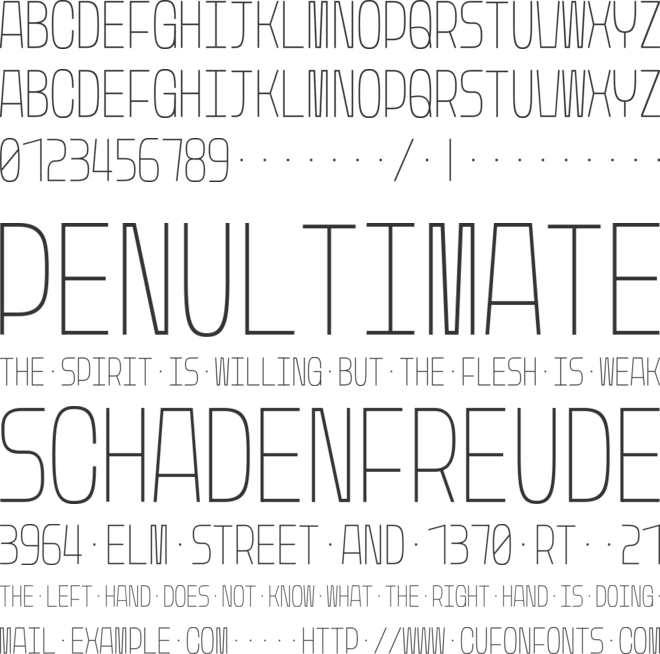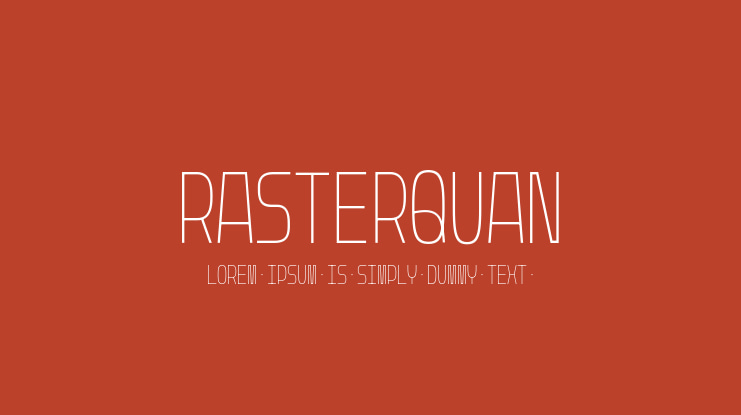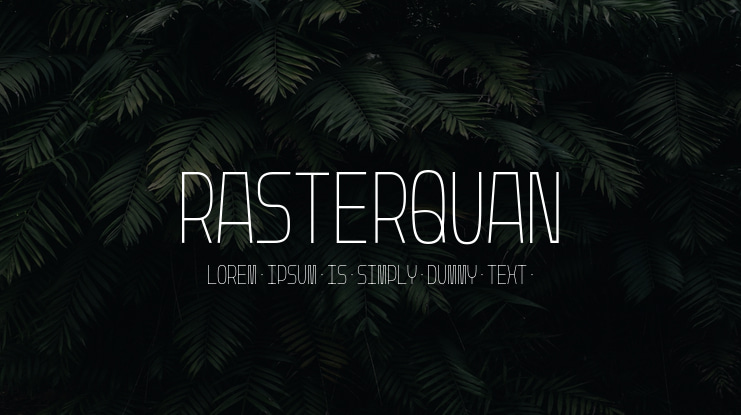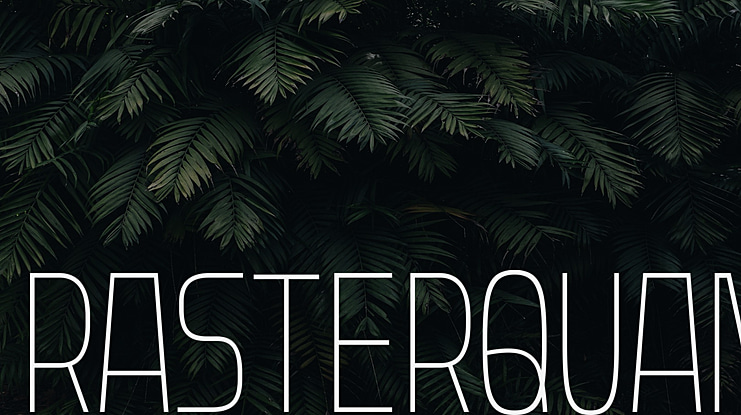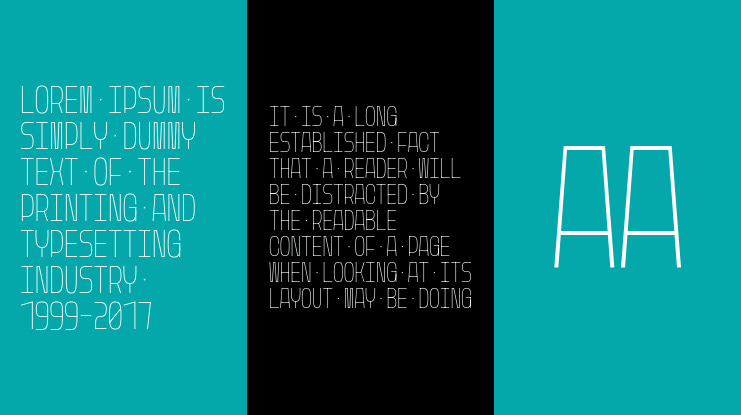
Rasterquan Font Family
Tzuyuan Yin
In order to explore the possible of variable font, Rasterquan is an all-caps and monospace font. It can freely change between thin and heavy, and the feature of the same width, so it can also be used in bitmap or motion graphic.